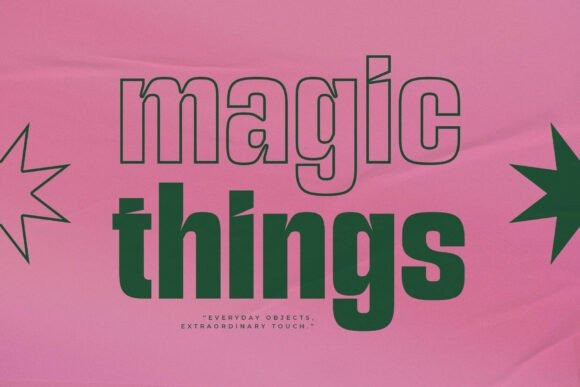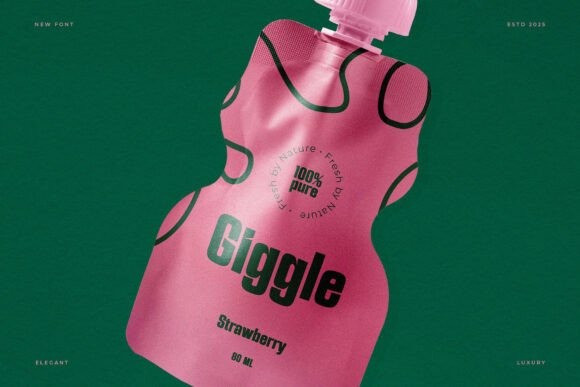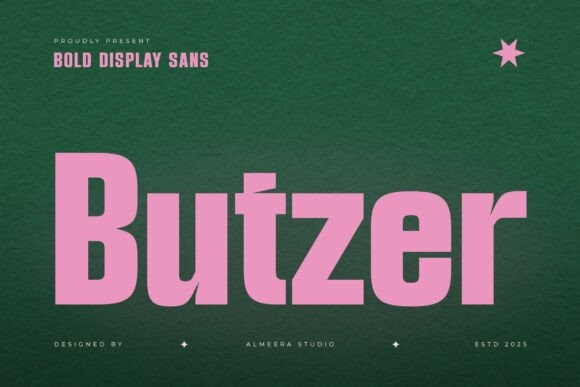
Butzer Font
Butzer Font is a bold display sans designed to make a statement. With its strong geometric shapes and modern proportions, this font is perfect for headlines, posters, branding, packaging, social media graphics, and any project that requires a powerful, eye-catching presence.
Butzer balances elegance with impact, offering a clean and versatile style that works across both digital and print media. Designed for designers who want clarity, confidence, and style in their typography, Butzer brings a contemporary edge to any creative project.